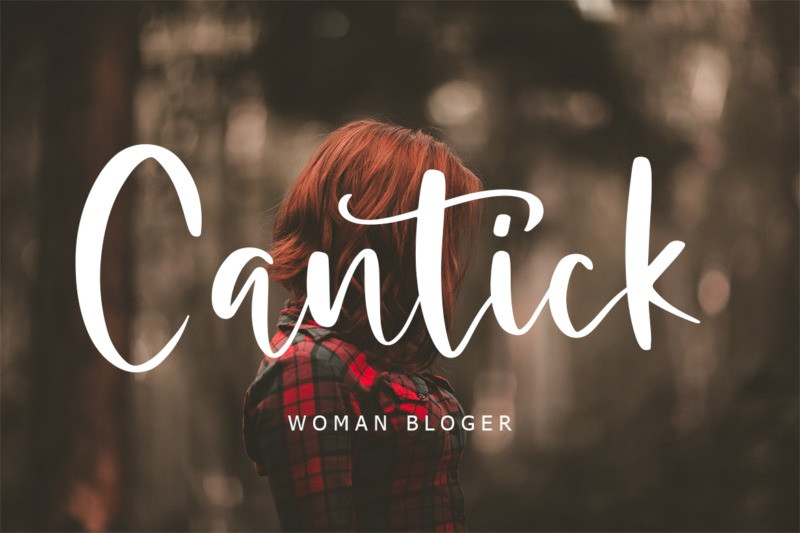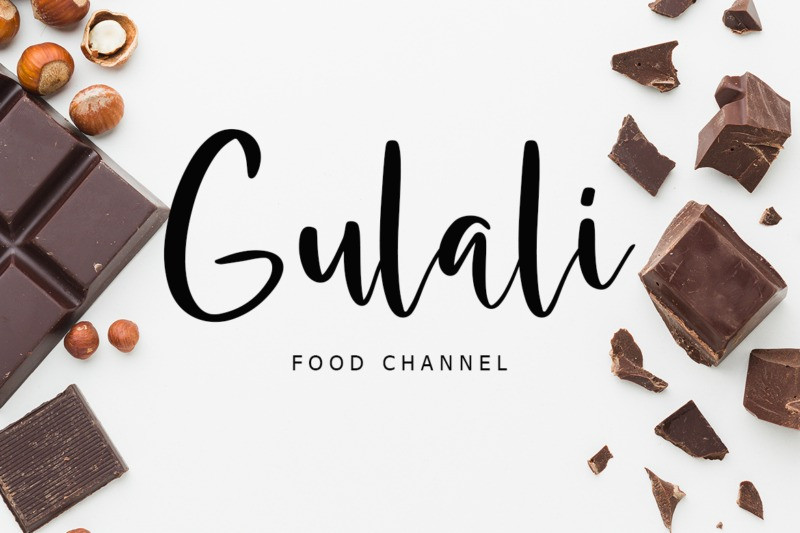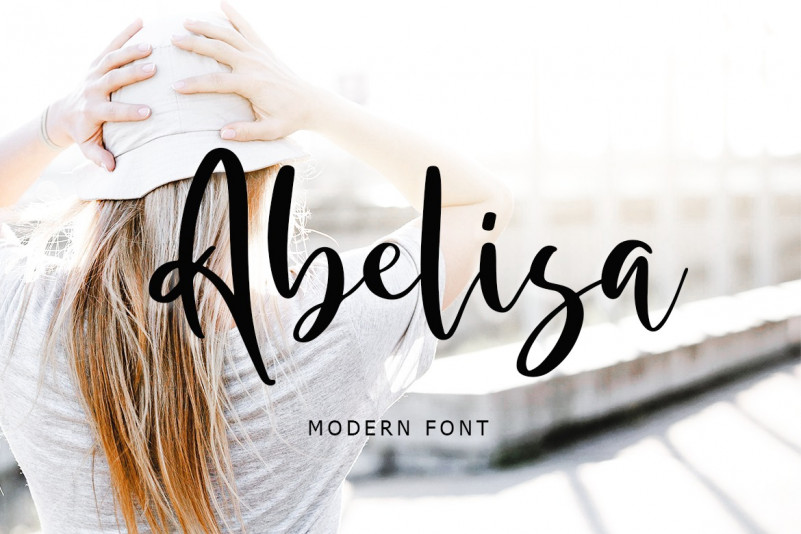
Beauty Heart Anatasha Calligraphy Font
Beauty Heart Anatasha Handwritten Typeface. A collection of letters and numbers suitable your projects also great for Logotype, Branding Design, Logo Design, Digital Lettering Arts, T-Shirt/Apparel, Poster, Magazine, Signs, Advertising Design, and any design needs.